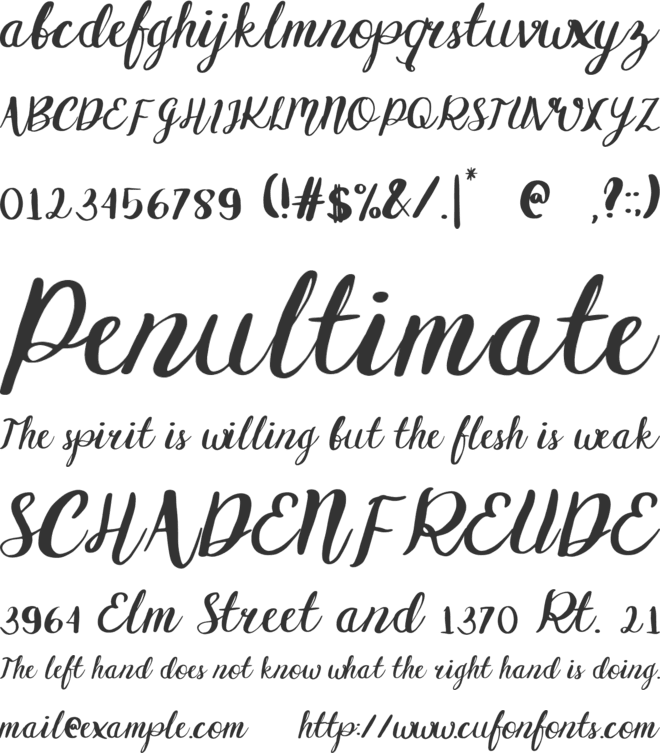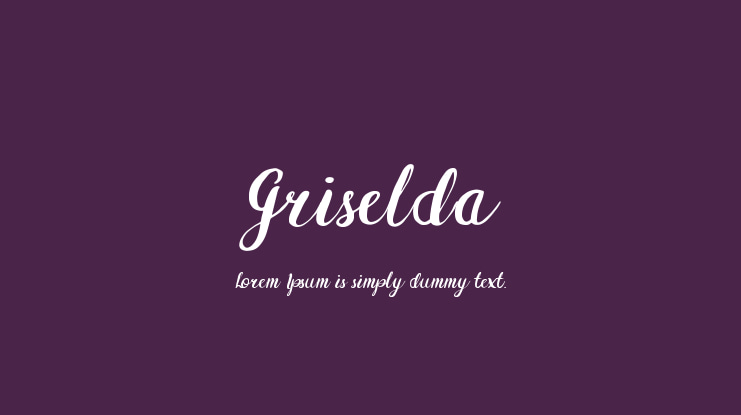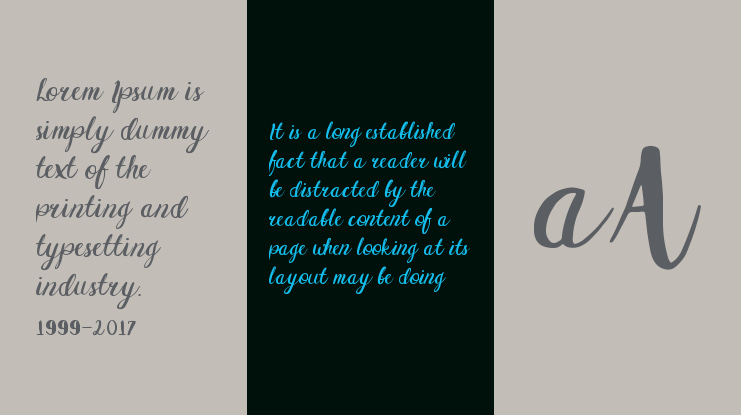
Griselda Font
A handmade font designed to perfectly combine an informal, sweet, romantic script, and hand drawn design elements.Perfect for greeting cards, branding, stationery design, social media, packaging, magazine layouts, prints and more. Griselda also has ligatures to complete your day. For futher information please visit our store at